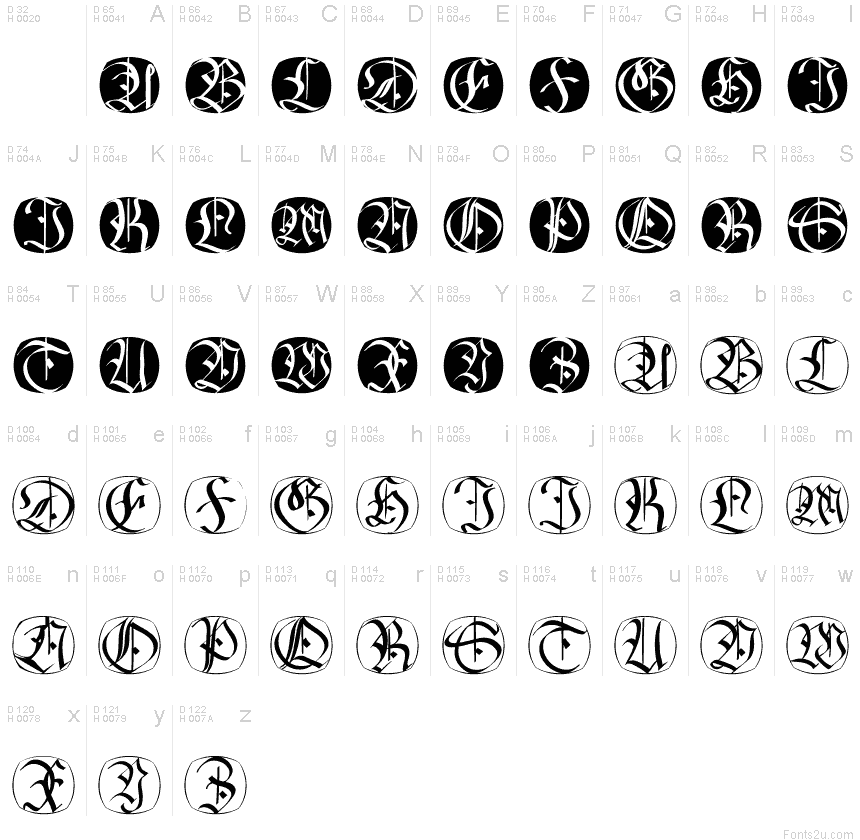
FraxBricKs by M Klein is a free medieval initial font built from ornate blackletter forms. Each letter sits within a circular frame, with sweeping strokes and sharp hooks cutting across the field. The alternating filled and open areas give the initials a carved, almost heraldic look.
Its manuscript and heraldic references suit fantasy publishing, historical event posters, and game packaging. The round format also makes these letters useful for merchandise badges, where a single initial can carry the design. Rather than reading as ordinary lettering, each character can function as a seal or illustrated emblem.